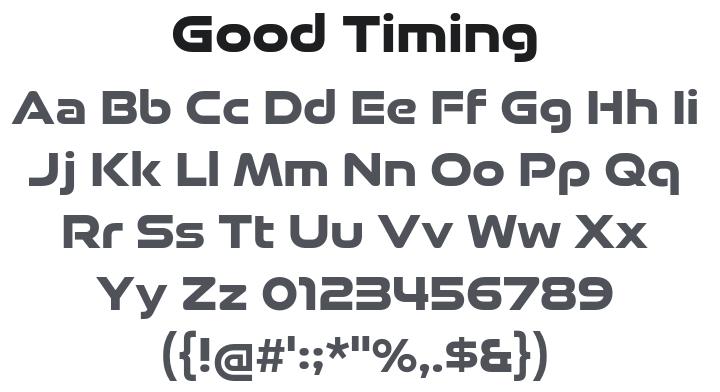
Good Timing Font
About Good Timing
Good Timing builds on the futuristic geometry of Good Times, refining its capsule shapes and softened edges into a versatile, contemporary sans serif. Now with a complete lowercase set, it expands beyond display use into branding, interfaces, and editorial design. Seven weights with matching italics preserve clarity from light text to bold headlines, while broad language support, including Latin, Greek, Cyrillic, and Vietnamese...ensures consistency across global projects. Clean, approachable, and precisely balanced, Good Timing brings modern flexibility to a classic techno aesthetic.